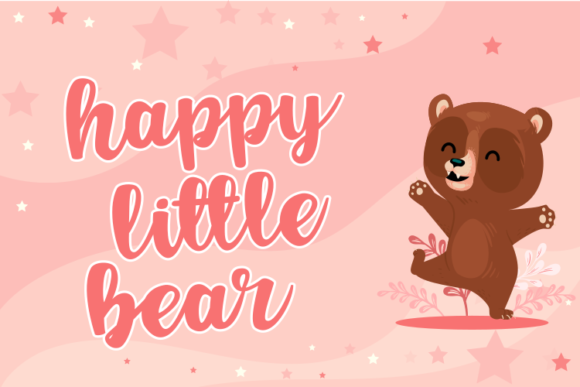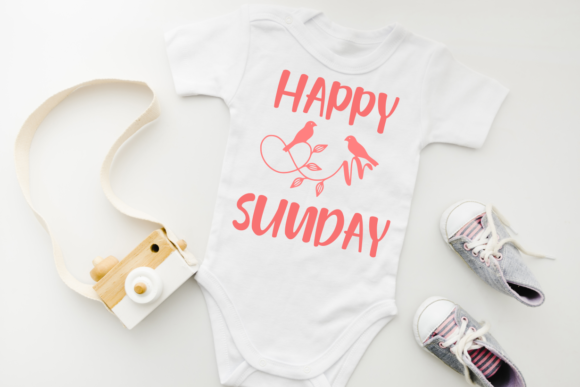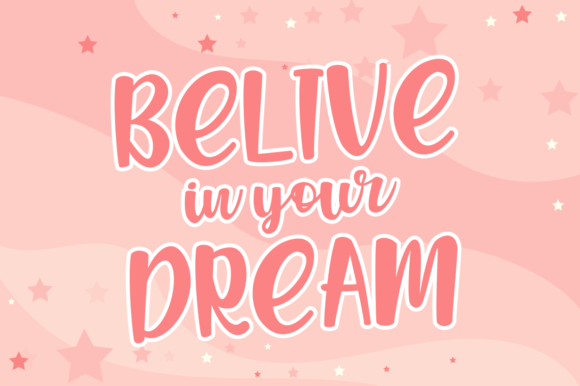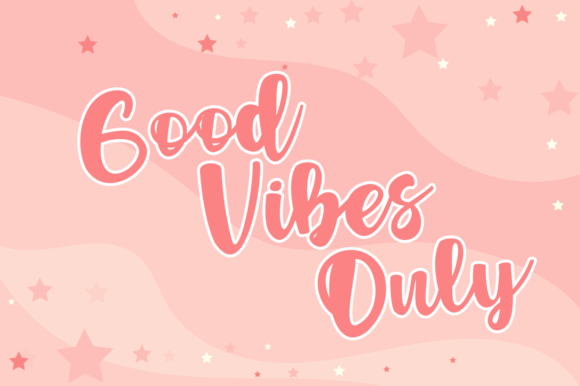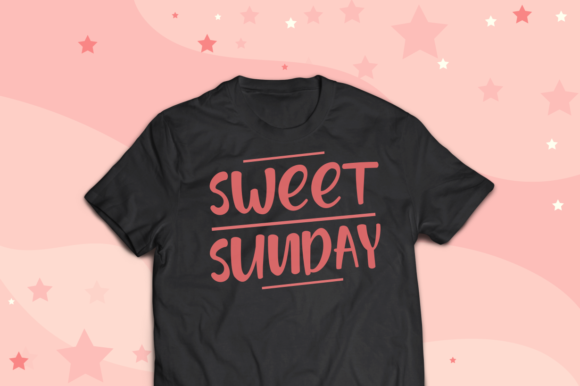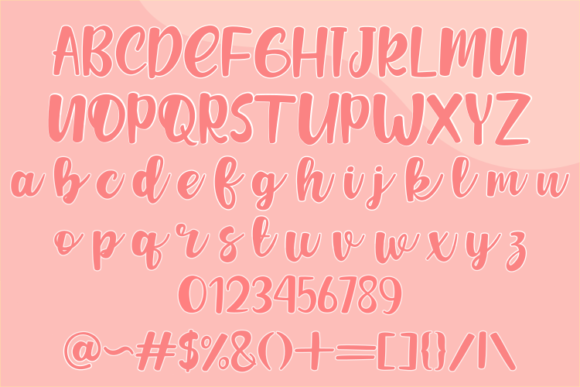
Introduction to Jafeline Hand Font
Jafeline Hand feels equally charming and modern.
This stunning handwritten font is a stylish homage to classic calligraphy Jafeline Hand is the ideal font for making original and outstanding designs.